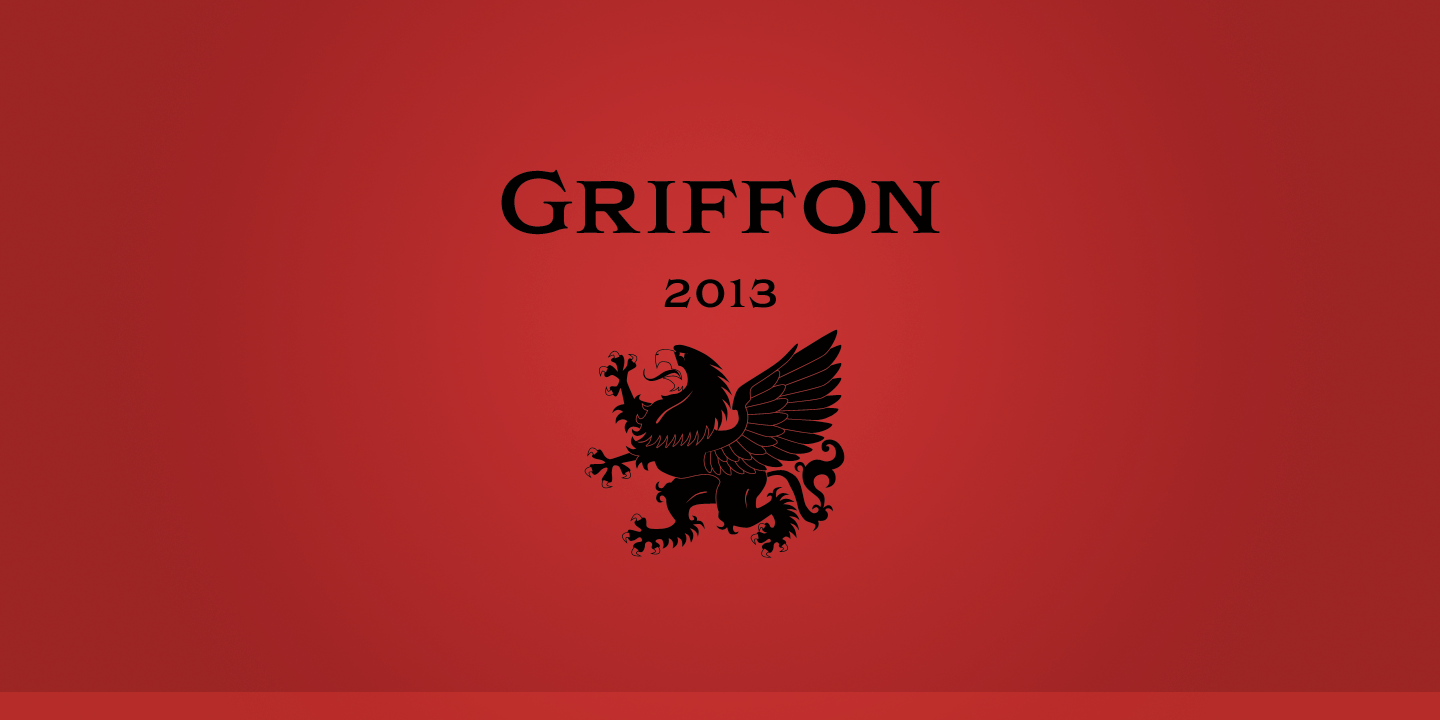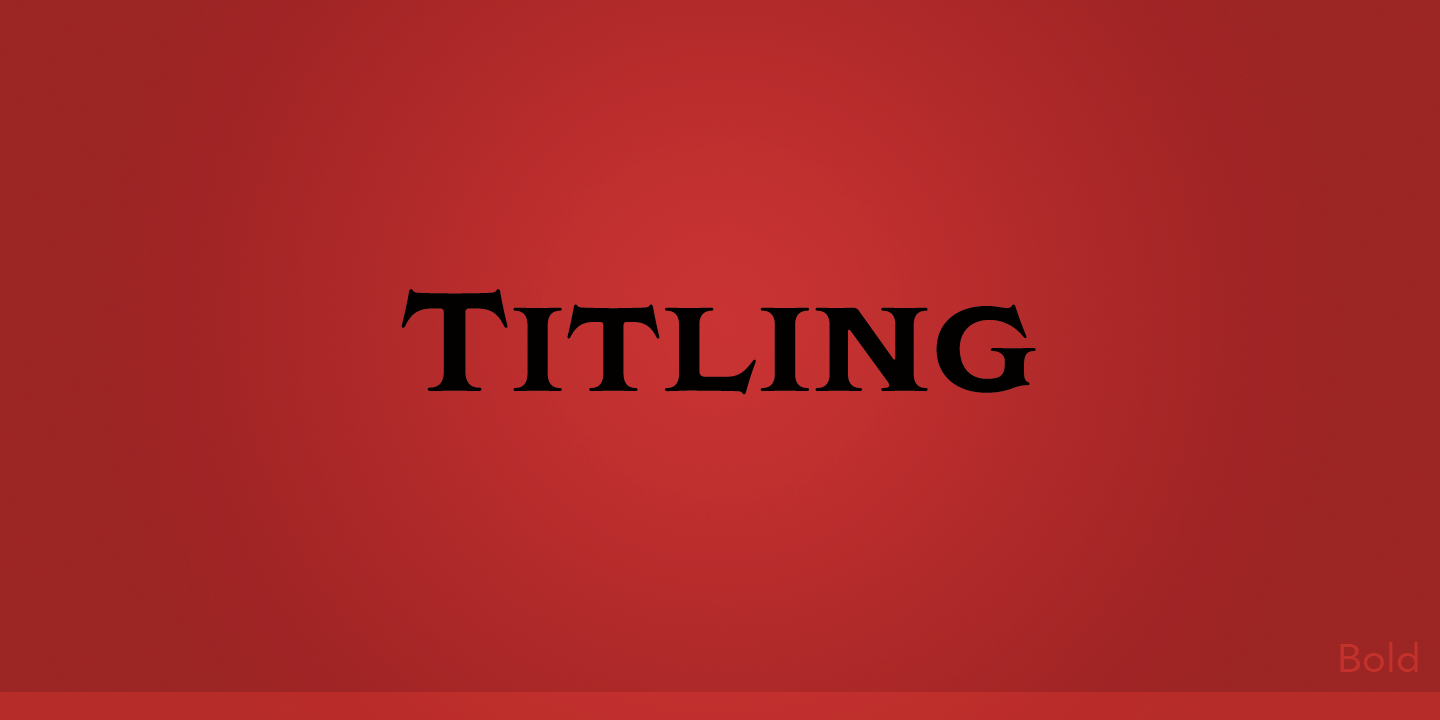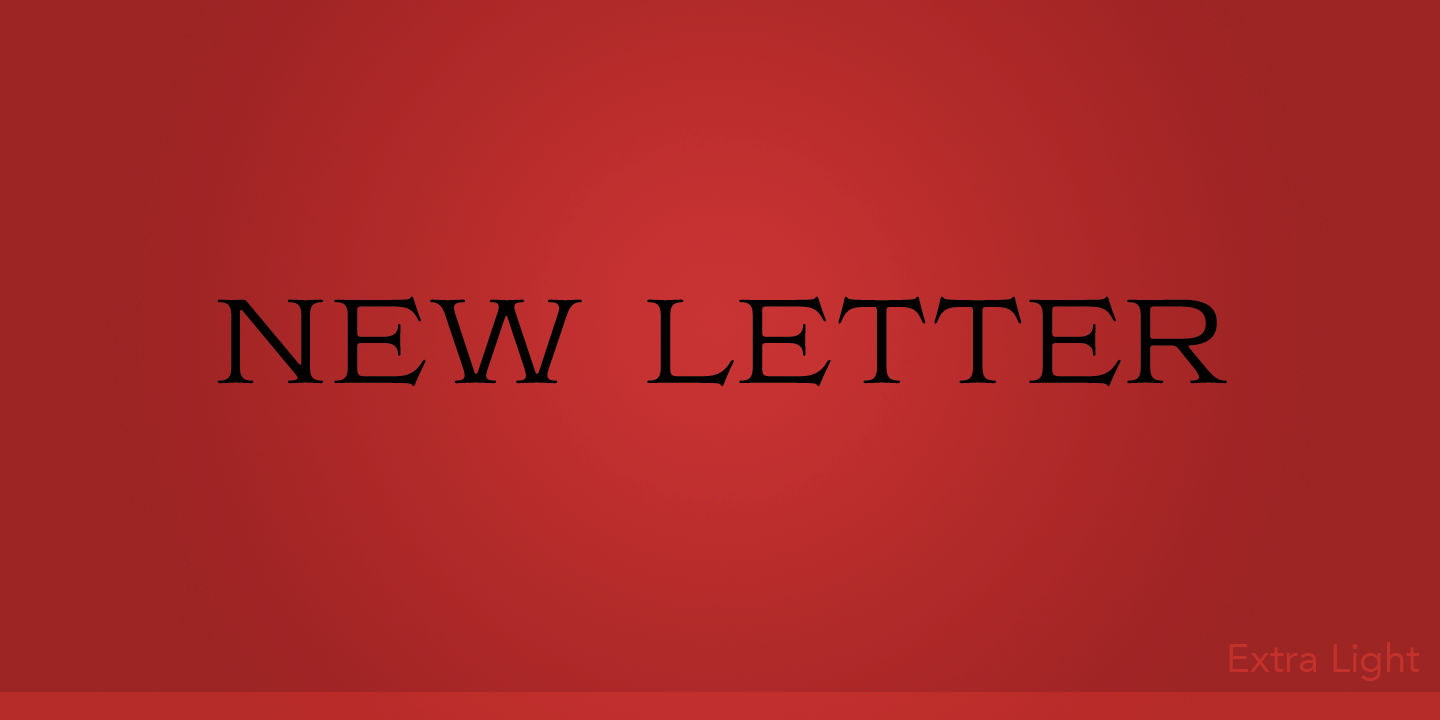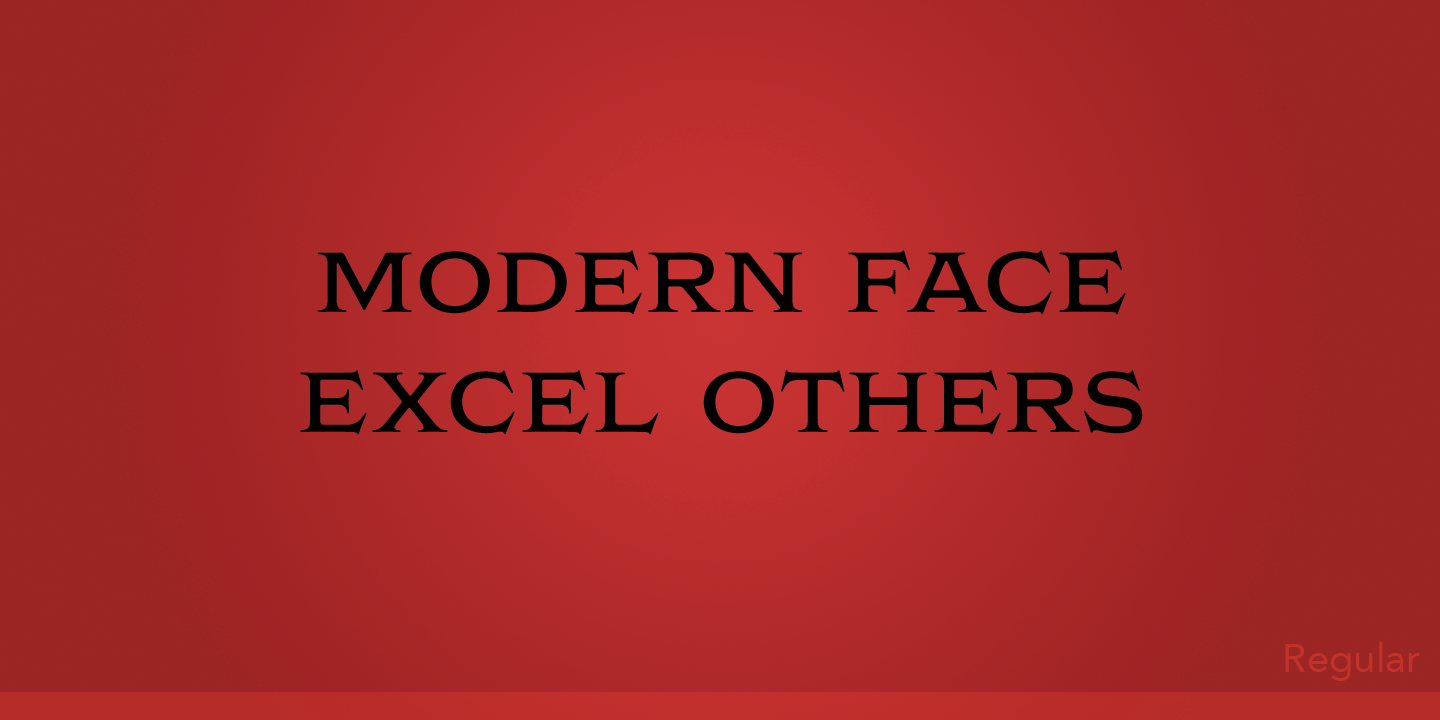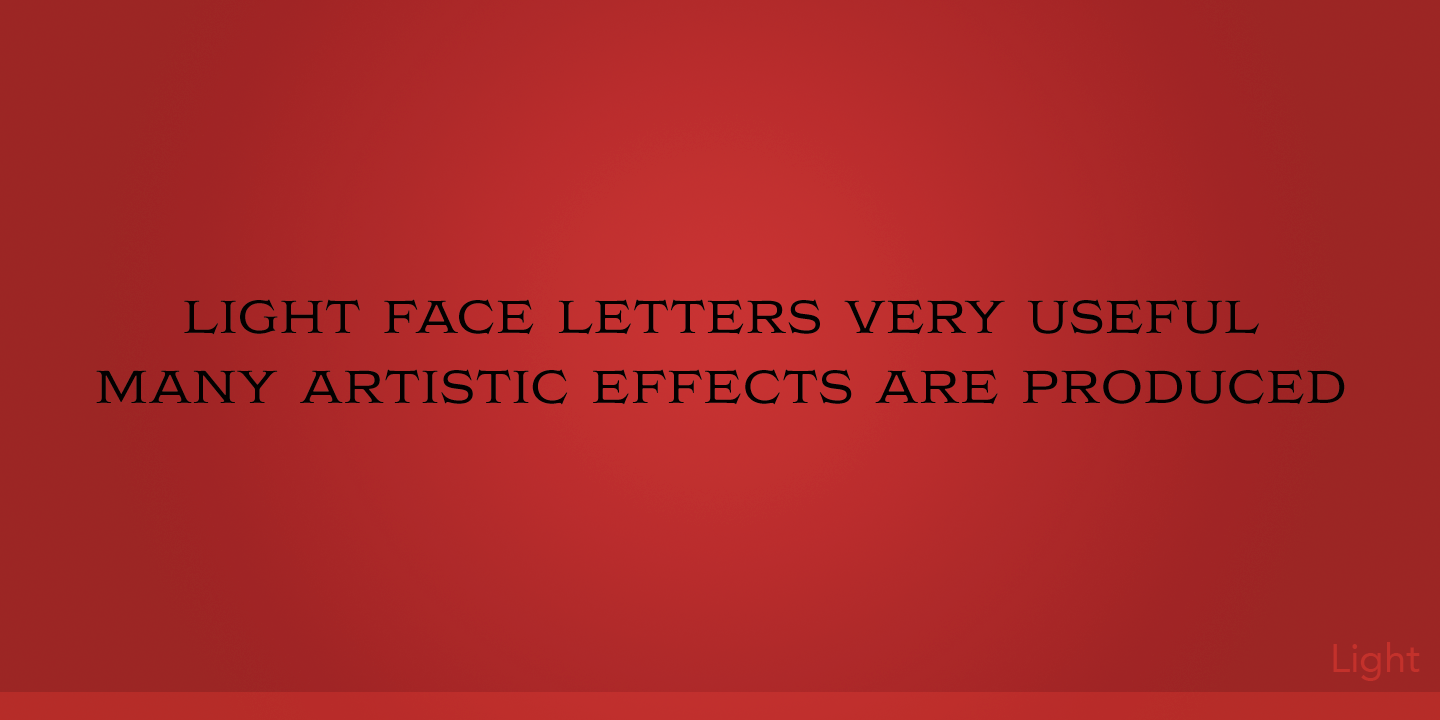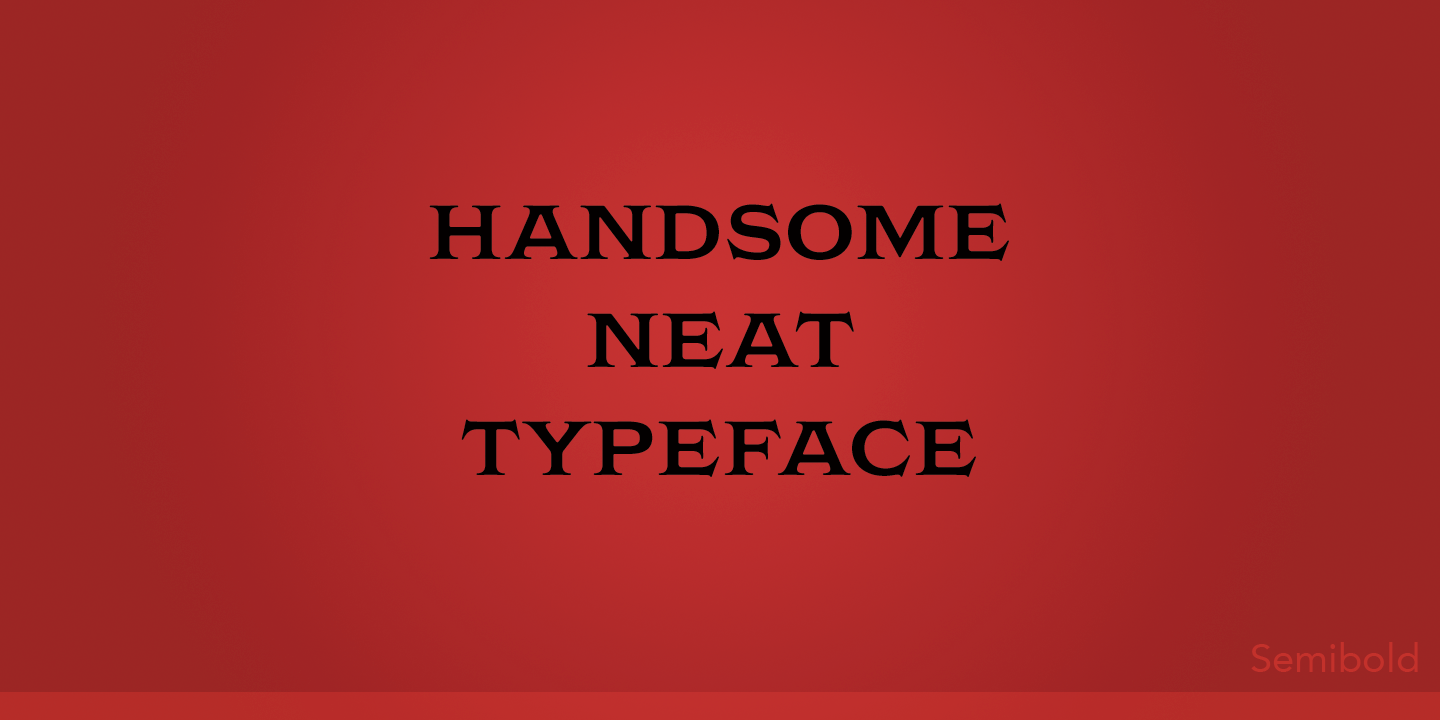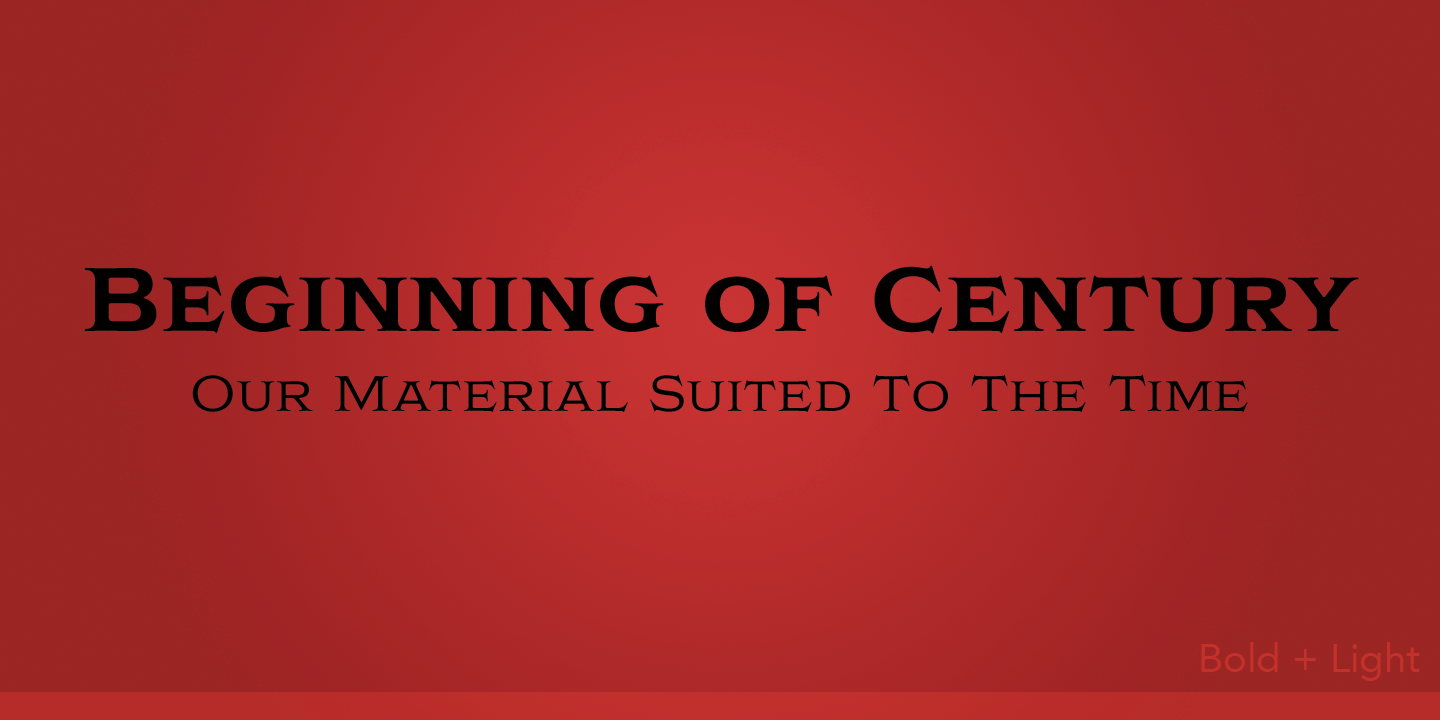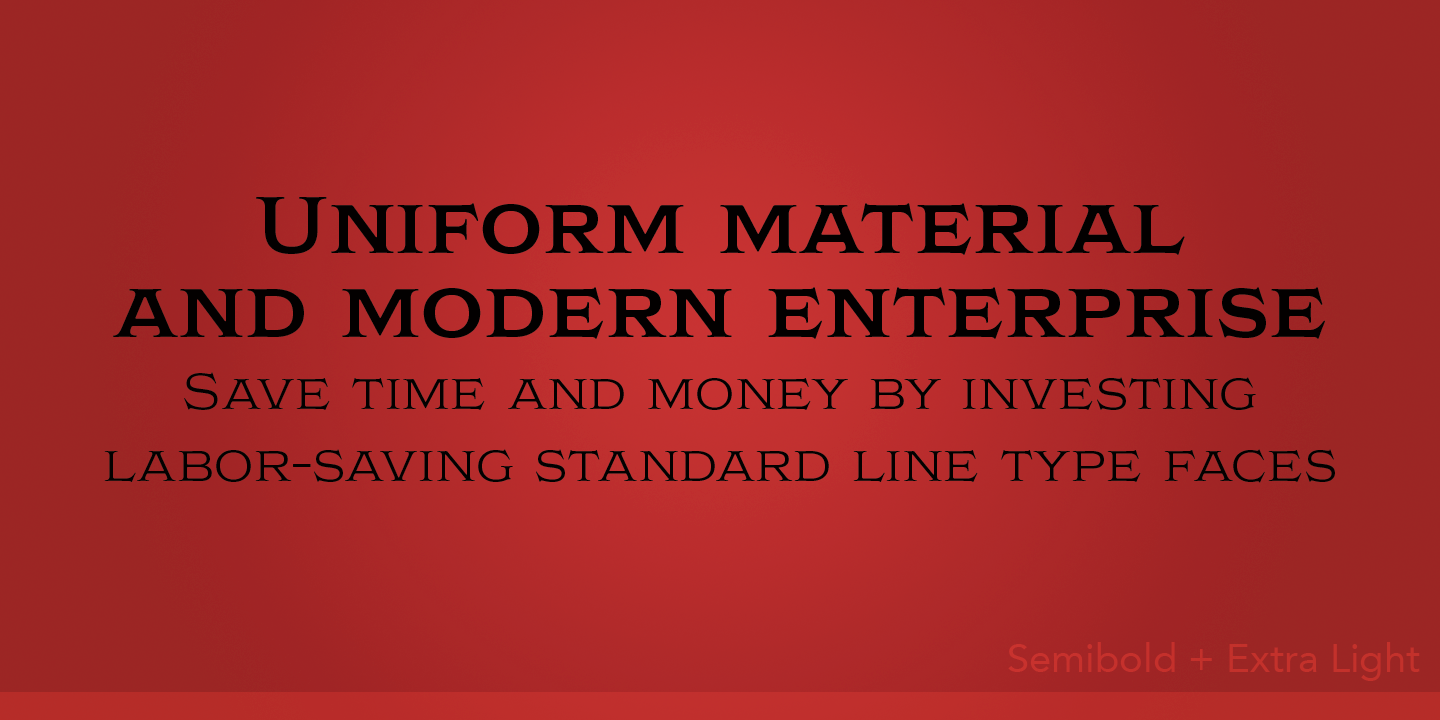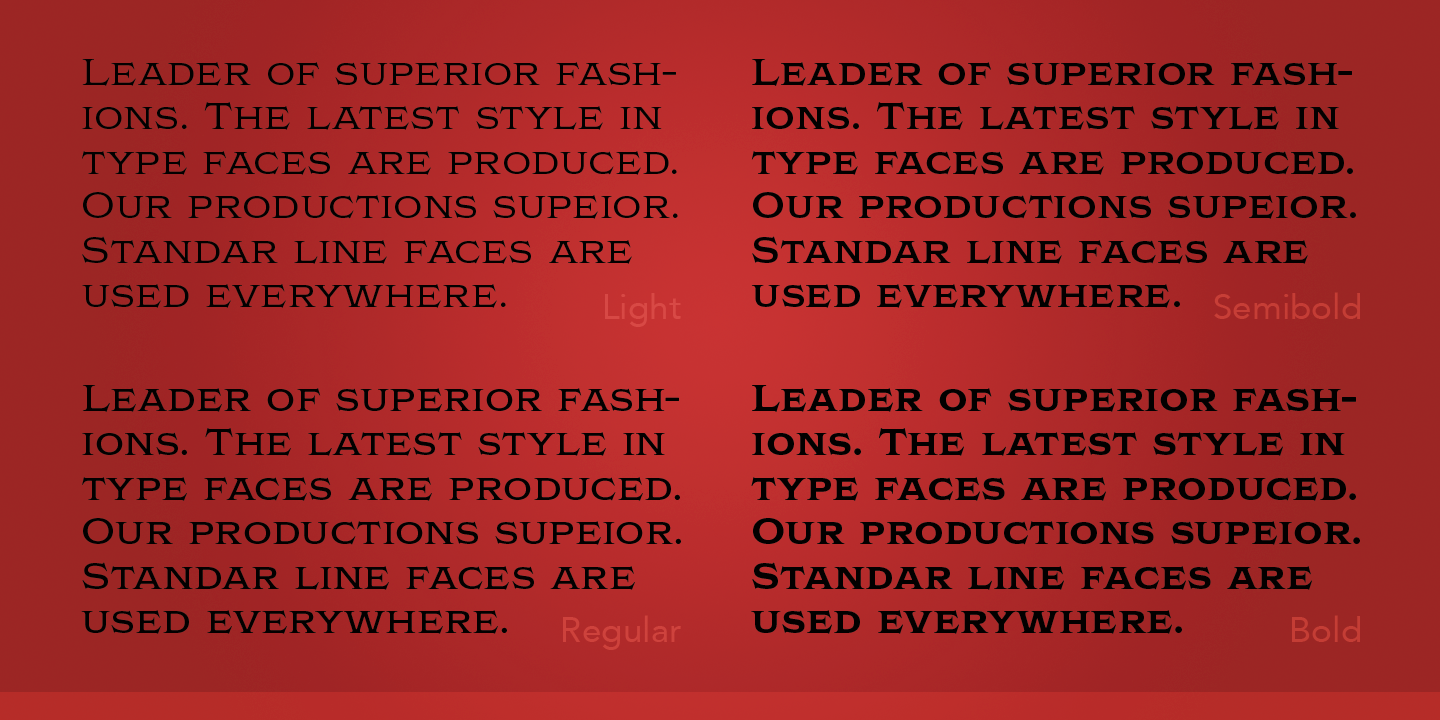
Griffon Family (5 fonts)
Griffon, titling face with influence from classic letterforms, inspired by retro faces in the early 20th century. This font family was all redesigned from scratch and now released ranging in 5 weights with small caps from Light to Bold. The powerful letterforms can make a strong impression on everyone. Try this HANDSOME serif that reminds you of the old days, about one hundred years ago.